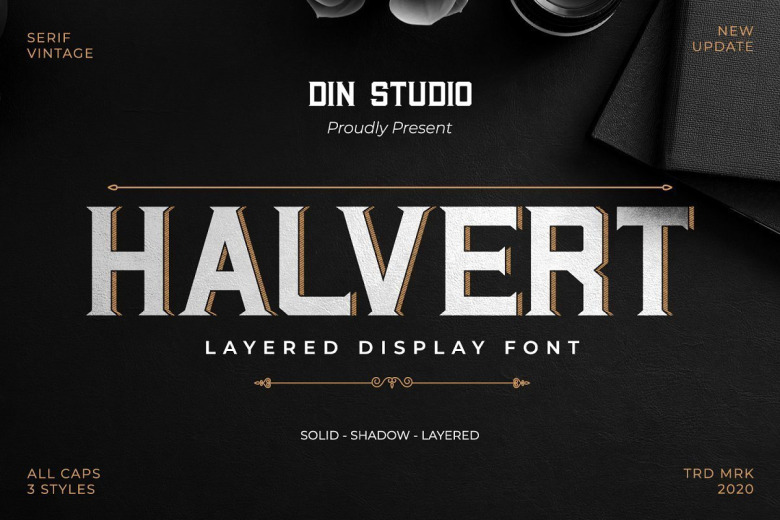
Halvert Layered Display Font
Halvert Layered Display Font is an amazing display typeface. The font is suitable for any project like branding , lettering , t-shirt print and many others. This font is perfect for use in title designs such as clothing, invitations, title books, stationery designs, quotes, branding, logos, greeting cards, t-shirts, packaging designs, posters, and more.